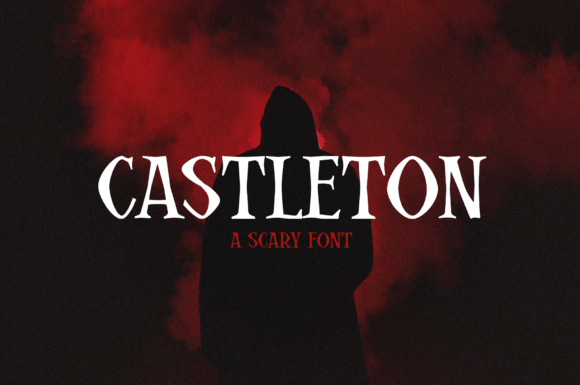
The Spooky Charm of Castleton Font: A Designer’s Delight
I still remember the night I was working on a Halloween-themed project for a client, and I was struggling to find the perfect font to capture the eerie and mystical vibe. The client wanted something that would make their poster designs pop, but I was stuck in a font rut. That’s when I stumbled upon Castleton Font, a Halloween-inspired typeface that instantly cast a spell on me. In this article, I’ll share my experience with Castleton, its features, and how to make the most of it in your designs.
An Honest Review of Castleton Font
So, what makes Castleton Font so special? Here are some things I love about it:
• ✨ Unique and quirky design that’s perfect for horror and fantasy-based projects
• ✅ Highly versatile and can be used for a wide range of applications, from posters to apparel
• 🎃 Spooky and mystical vibe that’s sure to grab attention
• 💻 Great for digital and print designs, with excellent legibility
Of course, no font is perfect, and Castleton has a few small quirks:
• 🤔 Some letters may appear a bit condensed, which can affect readability at smaller font sizes
• ⚠️ Limited availability of certain characters, such as accented letters
The Backstory of Castleton Font
Legend has it that Castleton Font was inspired by the creepy castles and mansions of old England. The font’s designer, a self-proclaimed horror fan, wanted to create a typeface that would capture the essence of Halloween and the supernatural. With Castleton Font, you can bring a touch of spooky charm to your designs and make them stand out from the crowd.
What type of designs is Castleton Font best suited for? Castleton Font is perfect for horror, fantasy, and Halloween-themed designs, such as posters, branding, apparel, and decorations.
Is Castleton Font available in different weights and styles? Currently, Castleton Font is available in a single weight, but its versatility and range of OpenType features make it suitable for a wide range of designs.
With Castleton Font, you can unleash your creativity and create eye-catching designs that will leave a lasting impression. So, what are you waiting for? Get creative and cast a spell with Castleton Font today! 🎃